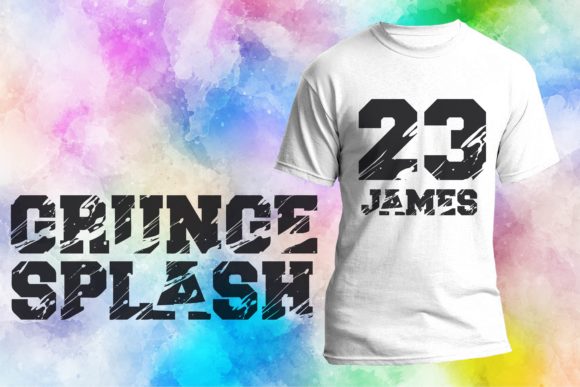
Dive into the world of visual elegance with Grunge Splash, an extraordinary display font that sets your designs apart. Capture the essence of sophistication with its meticulously crafted characters, designed to elevate your creations to new heights. Grunge Splash's versatility shines through in its ability to transform both headlines and text blocks with equal grace.
Experience the grandeur of Grunge Splash in its natural habitat - the digital world. Witness how its carefully balanced strokes and dynamic shapes command attention on websites, social media platforms, and digital marketing materials. Unleash your creativity and captivate your audience with Grunge Splash's unmistakable charm.
Step into the realm of print and bring your designs to life with Grunge Splash. Let its bold presence grace posters, flyers, brochures, and magazines, leaving a lasting impression on your readers. The font's intricate details and expressive style will elevate your printed creations, making them stand out from the ordinary.
Embrace the fluidity of motion graphics and animations with Grunge Splash. Its inherent energy and dynamism translate seamlessly into moving visuals, adding a touch of elegance to your videos, presentations, and social media posts. Grunge Splash's inherent rhythm and flow will captivate your audience, leaving them mesmerized by your visual storytelling.
With Grunge Splash, the possibilities are boundless. Its adaptability extends to a wide range of design projects, from branding and logos to apparel and product packaging. Inject a dose of sophistication into your designs and leave an indelible mark on your customers. Grunge Splash is the ultimate choice for designers seeking a font that exudes elegance and versatility.